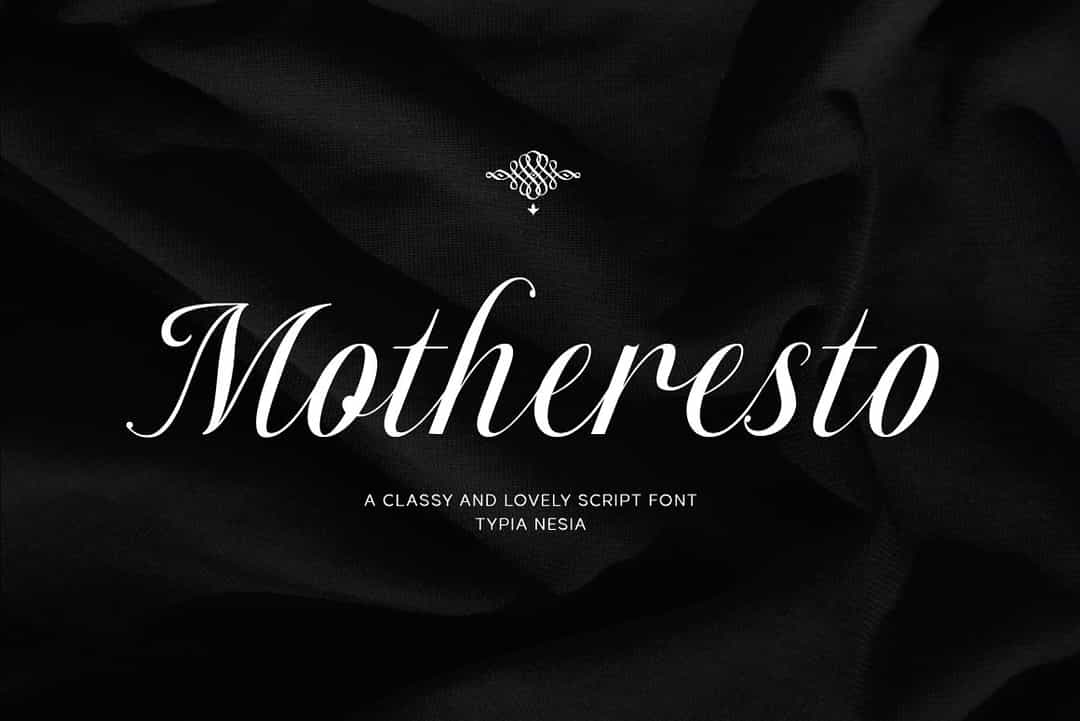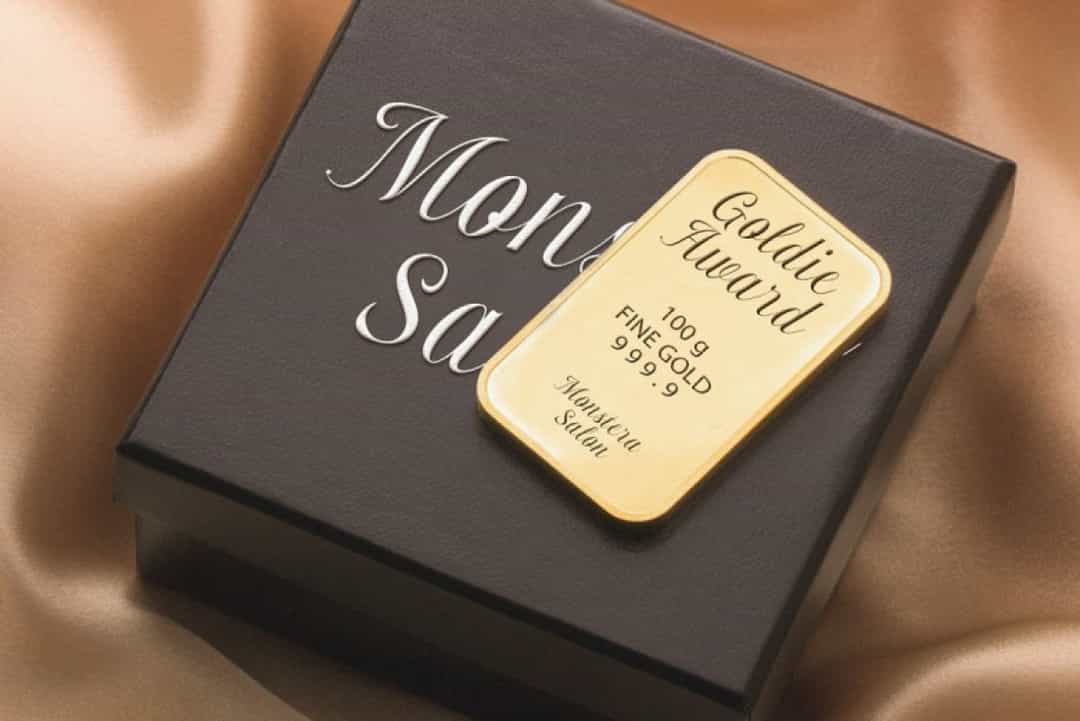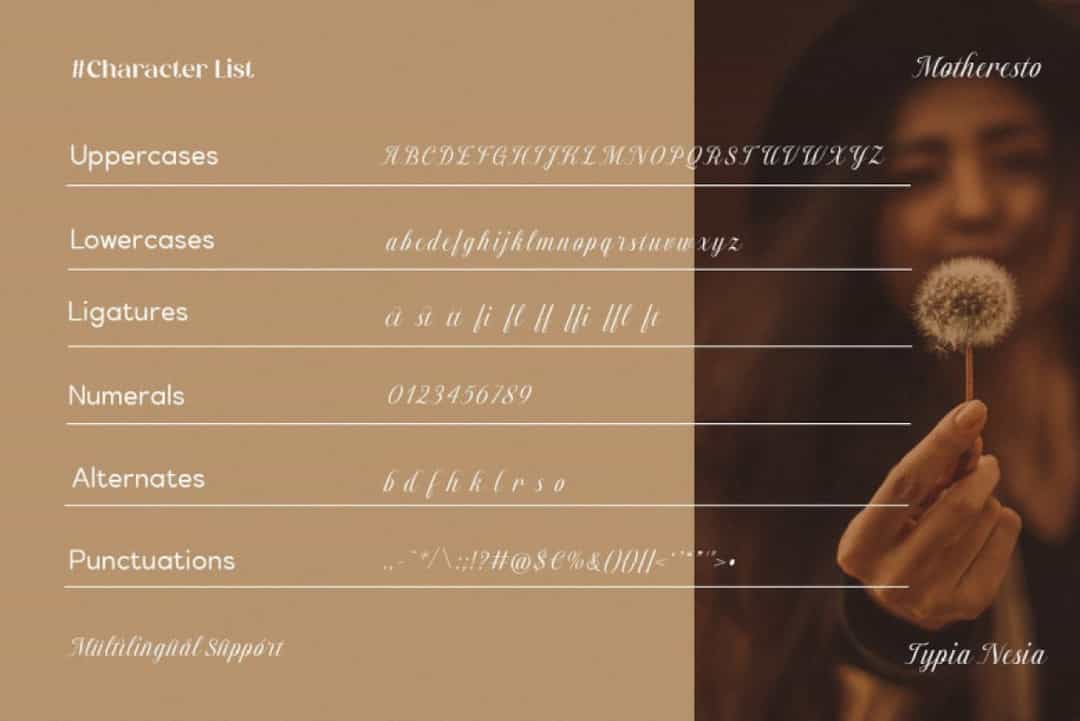
Discover Motheresto Font, part of the Calligraphy collection—a versatile and unique font perfect for adding a personal touch to your projects. Download it for free and enjoy crafting designs with style, from invitations to social media posts. This font is available exclusively for personal use, giving you the freedom to create without limits. Unlock your creativity with Motheresto Font today!
Motheresto Traditional Elegant Copperplate Calligraphy Script Font has a sophisticated flow and elegant calligraphy style which makes it a great fit for royal branding, wedding designs blogs social media branding for restaurants invitation cards or even your next project.